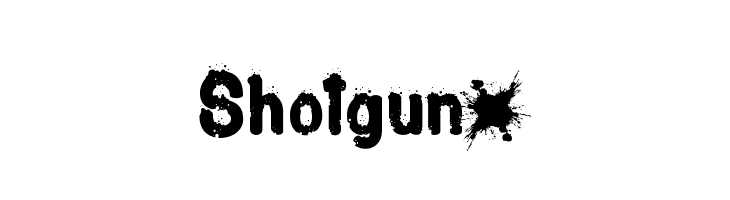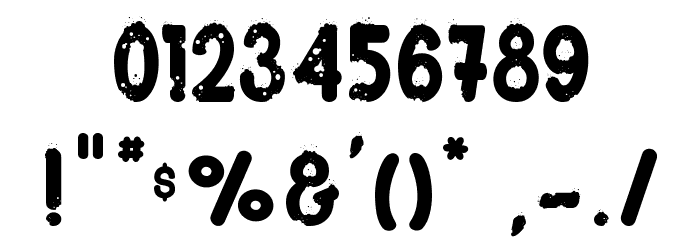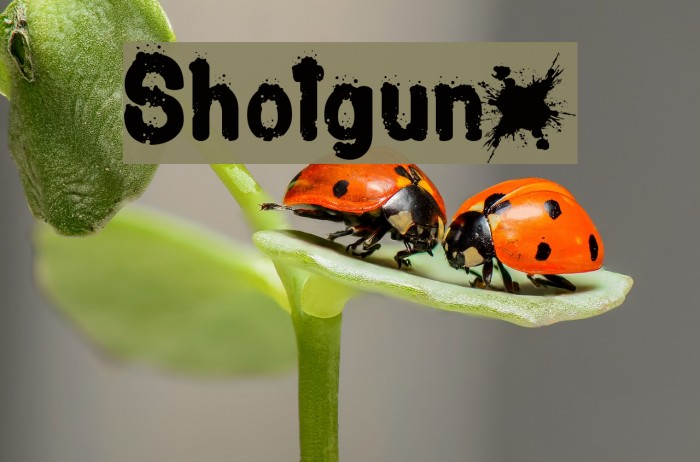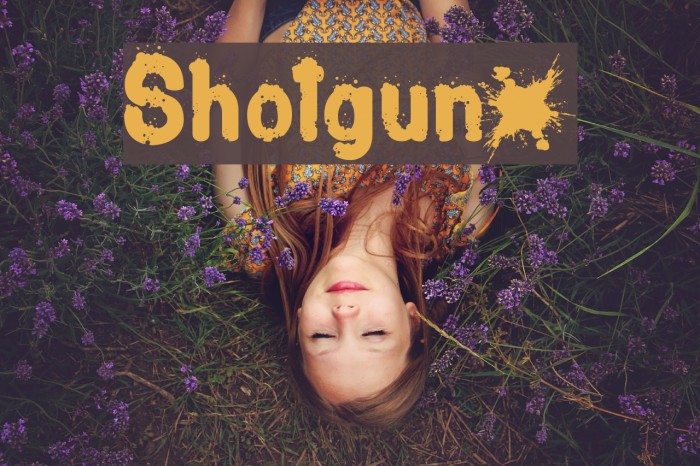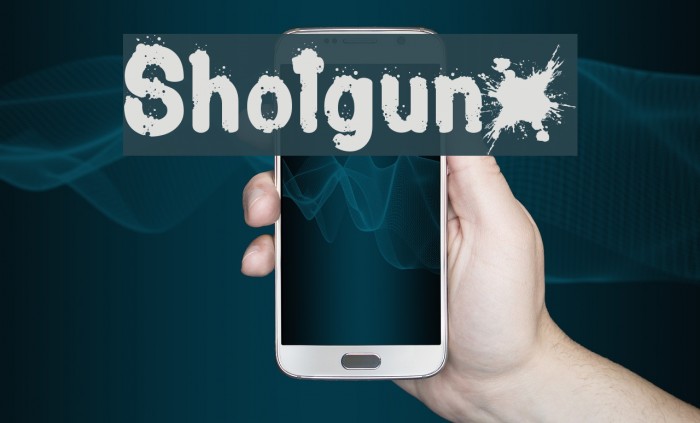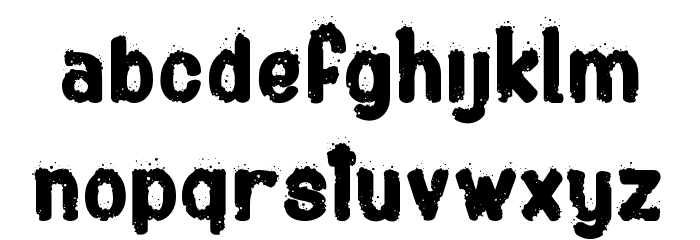
Shotgunµ Font
Shotgunµ Description
This font features a bold and rugged design with a distressed, grunge-like texture that gives it a unique, worn appearance. The characters are thick and substantial, with irregular edges that suggest a sense of dynamism and movement. The uppercase and lowercase letters maintain a consistent style, while the numerals and special characters complement the overall aesthetic. This font's distinctive look is ideal for projects that require a bold statement or an edgy, urban feel.
A bold, distressed font with a rugged, grunge-like texture from Fancy fonts.
- Proposed Projects: Ideal for posters, album covers, streetwear branding, and event flyers.